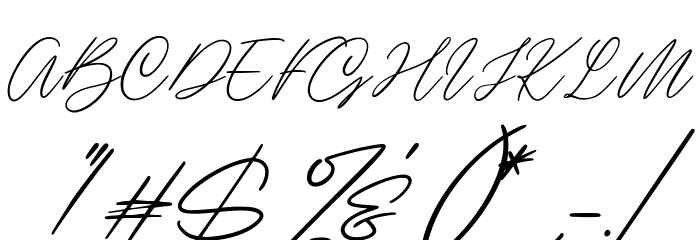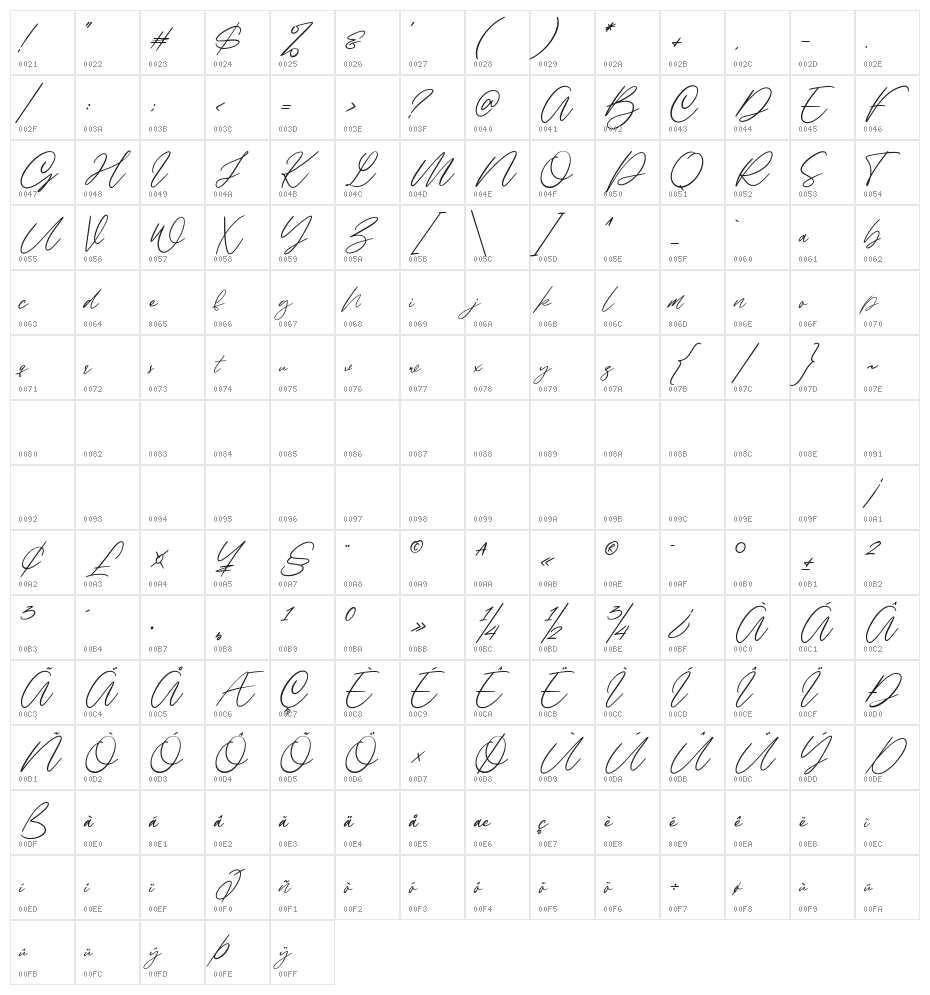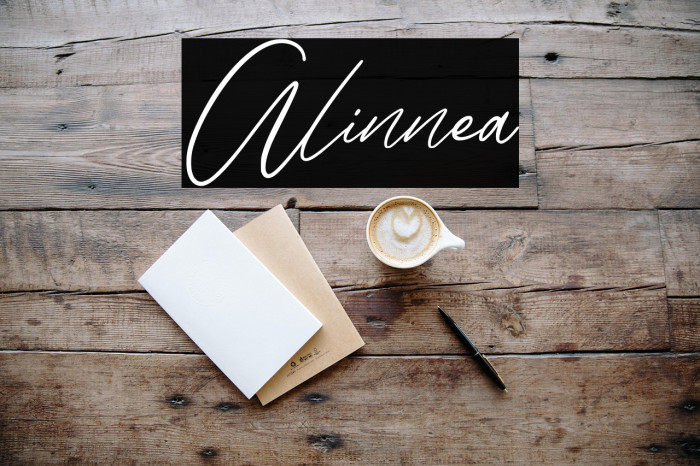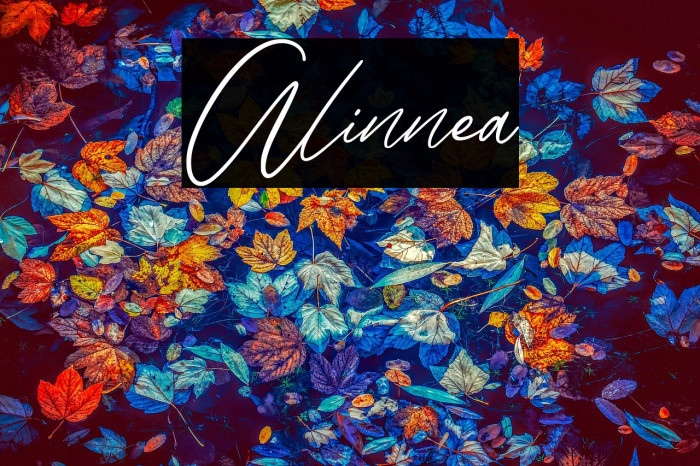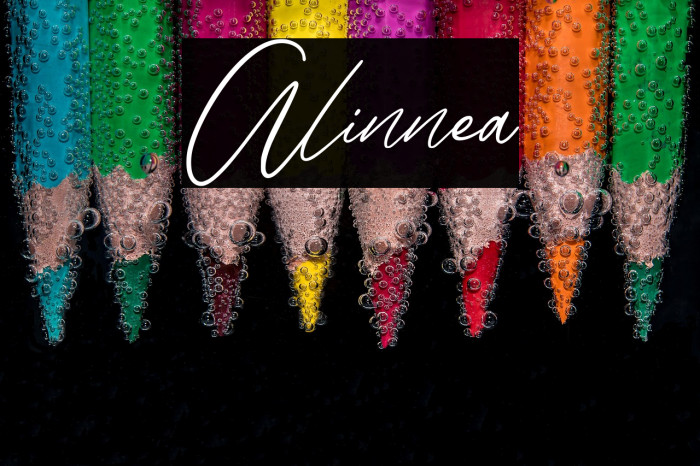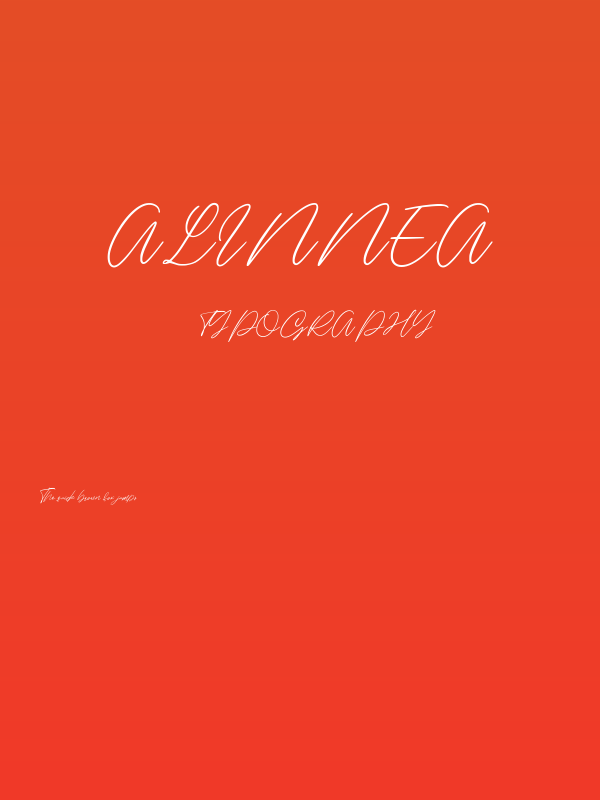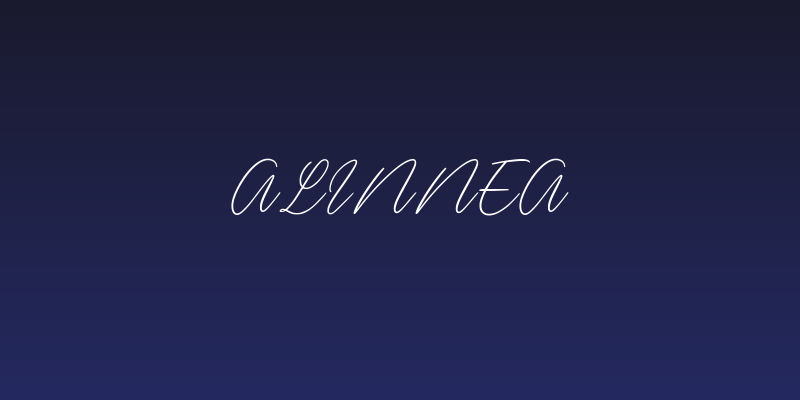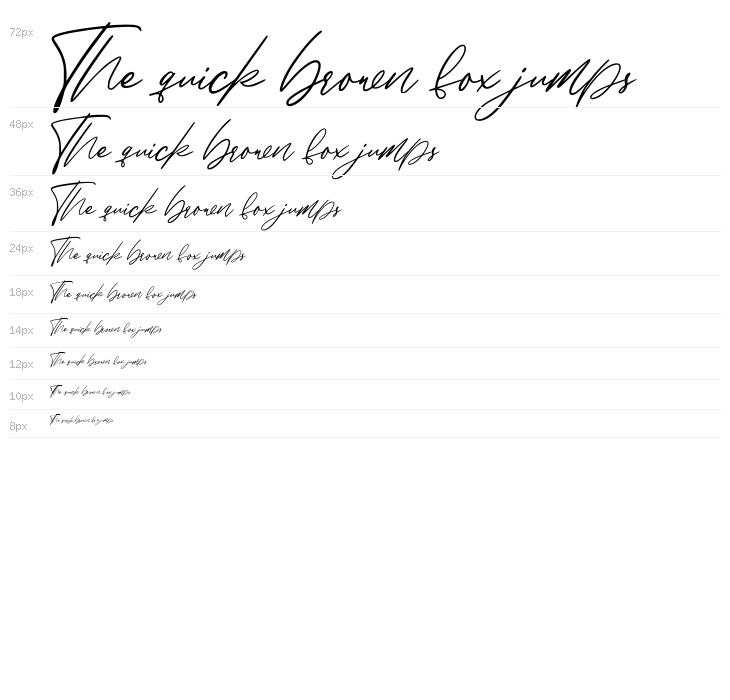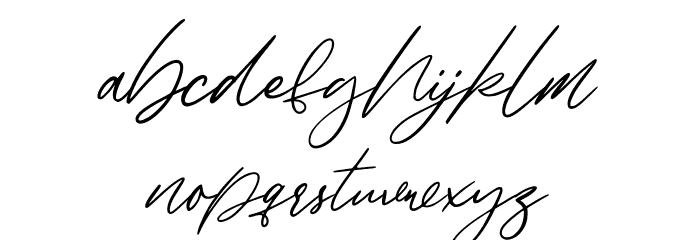
Alinnea Font
Alinnea Description
This elegant script font features fluid, cursive strokes that mimic the natural flow of handwriting. The uppercase letters are slightly elongated with graceful loops and curves, while the lowercase letters maintain a consistent slant, enhancing the handwritten feel. The font exhibits a sophisticated and artistic style, with each character seamlessly connecting to the next. The special characters are designed with the same fluidity, ensuring a cohesive appearance across all text. This font is perfect for adding a personal touch to any project, exuding both elegance and creativity.